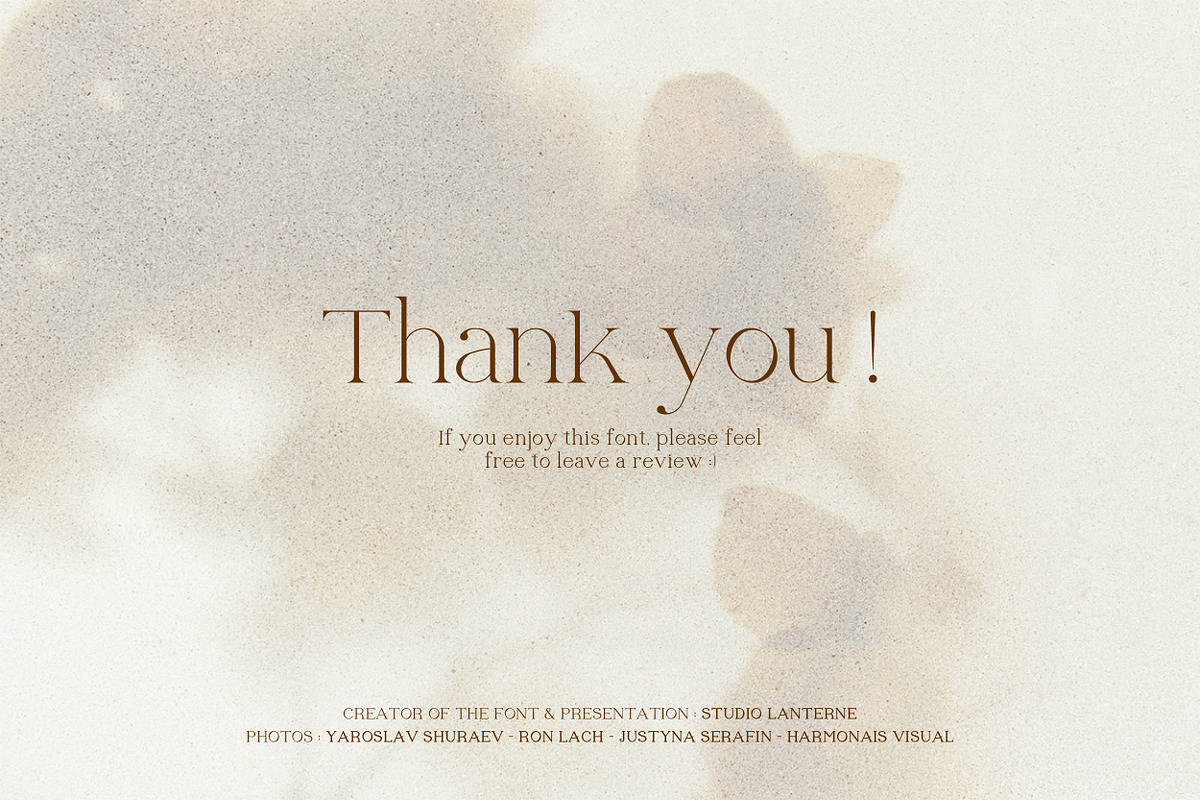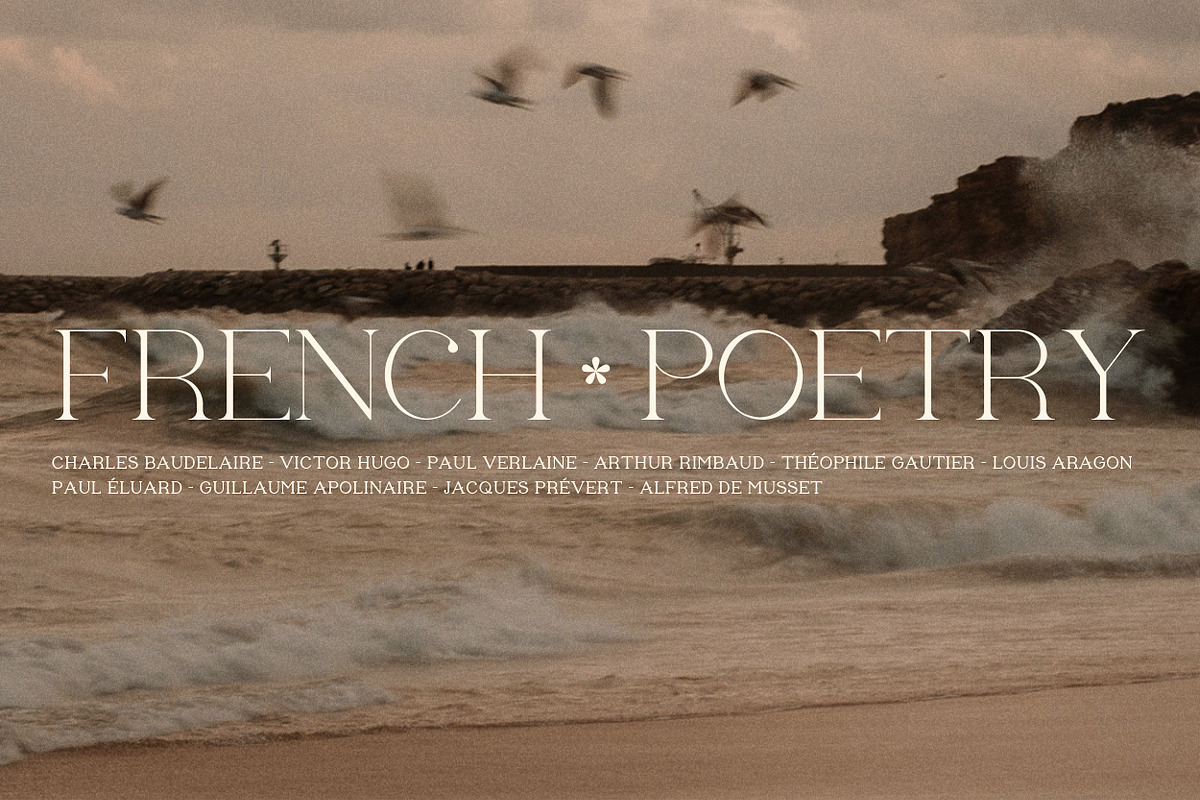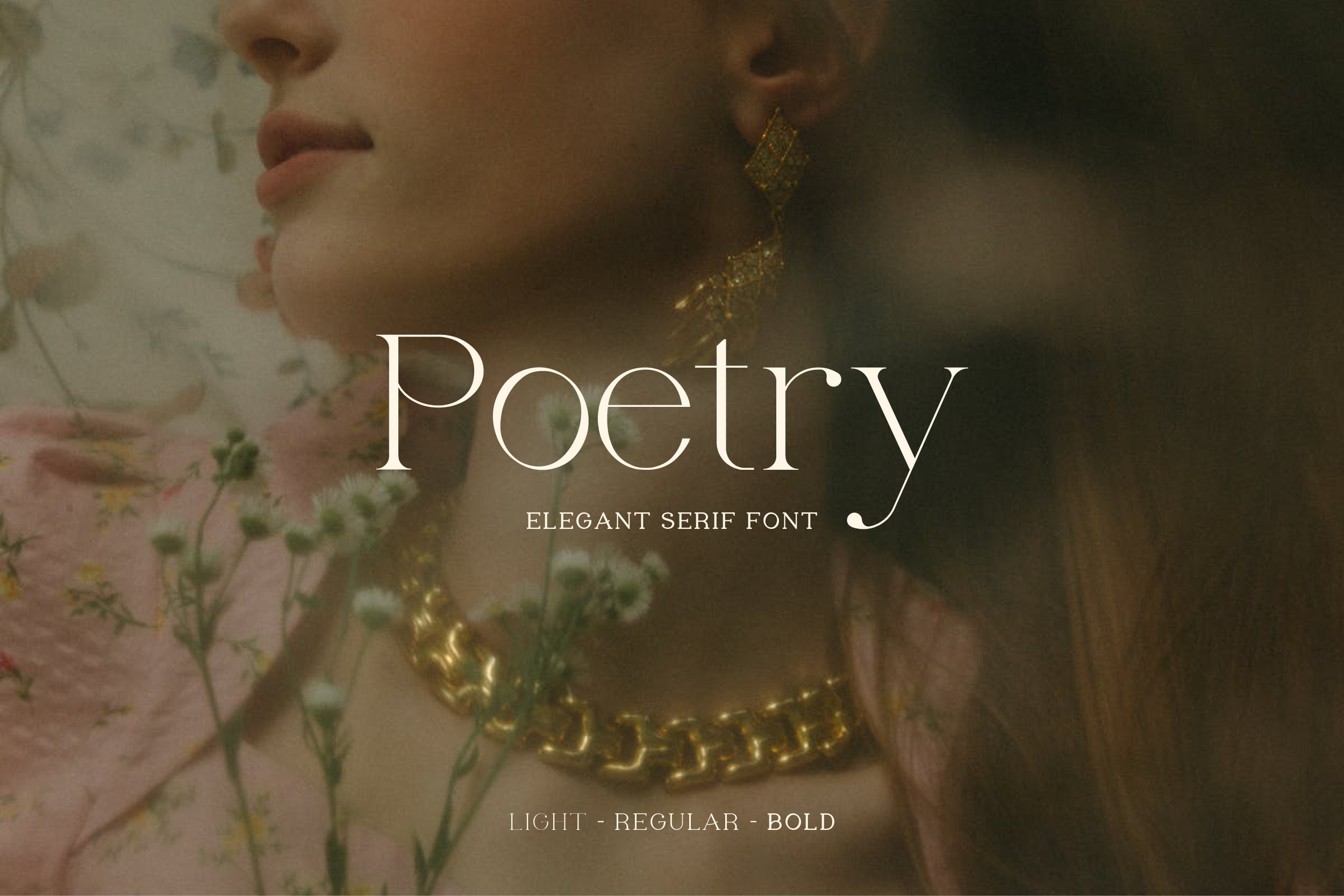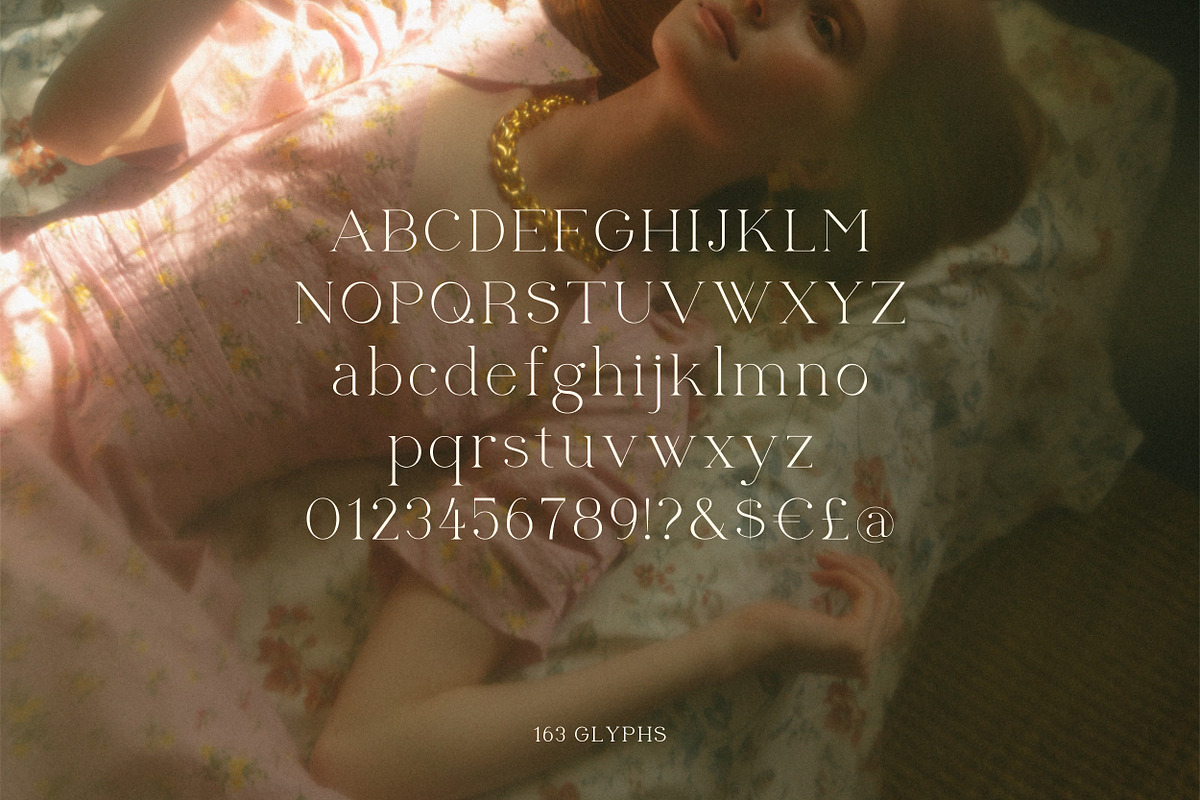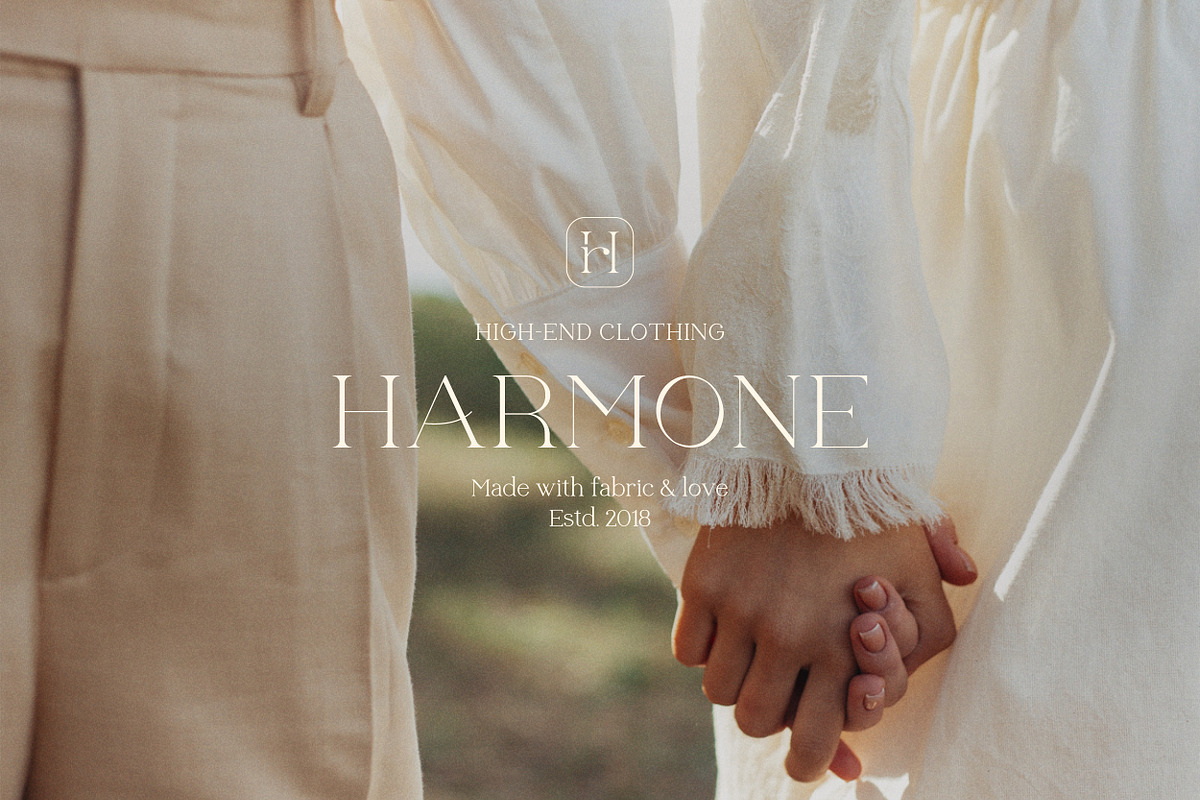
Poetry - Elegant Serif Font
Poetry is a modern serif typeface with some sophisticated details, designed to bring an elegant touch to all your design projects like logotypes, magazines, packaging, websites, and more.
- Letters (Uppercase & Lowercase)
- Numbers, Symbols, Punctuation
- Multi languages (26 diacritical signs)
- 3 Weights (Light/Regular/Bold)